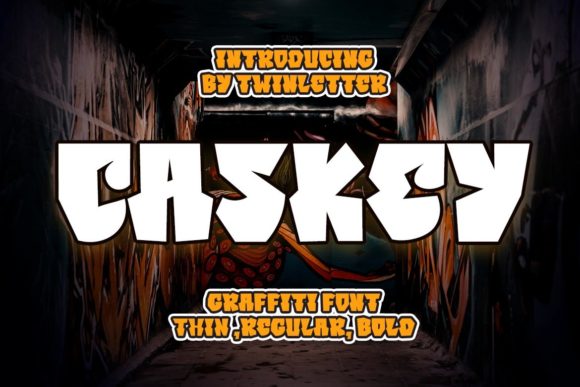
Introducing Caskey, the graffiti-inspired display font that will ignite your designs with raw street energy. This edgy typeface is a masterpiece of bold lines and vibrant artistry, making it the perfect choice for those seeking to make an impact.
Step into the world of urban art with Caskey and unleash your creativity like never before. This font family is a symphony of expressive strokes, capturing the essence of street culture and transforming your designs into captivating masterpieces.
Whether you're crafting eye-catching website banners, designing stylish t-shirts, or creating unforgettable logos, Caskey will elevate your creations with its undeniable charisma. Its versatility knows no bounds, effortlessly adapting to a world of design possibilities.
Imagine your website banner leaping off the screen, captivating visitors with Caskey's bold graffiti aesthetic. Your designs will exude a raw authenticity that resonates with street art enthusiasts and trendsetters alike.
Picture your t-shirts adorned with Caskey's vibrant strokes, becoming a statement piece that turns heads wherever you go. The fusion of urban flair and typographic brilliance will make your designs stand out from the crowd.
Envision your logos emblazoned with Caskey's bold presence, creating an instant identity that commands attention and leaves a lasting impression. With its ability to convey both power and personality, Caskey will transform your brand into an unforgettable force.
Join the urban art revolution and embrace Caskey, the font that embodies the raw energy of the streets. Let your designs dance to the rhythm of this captivating typeface, and witness the transformative power of its graffiti-inspired charm.